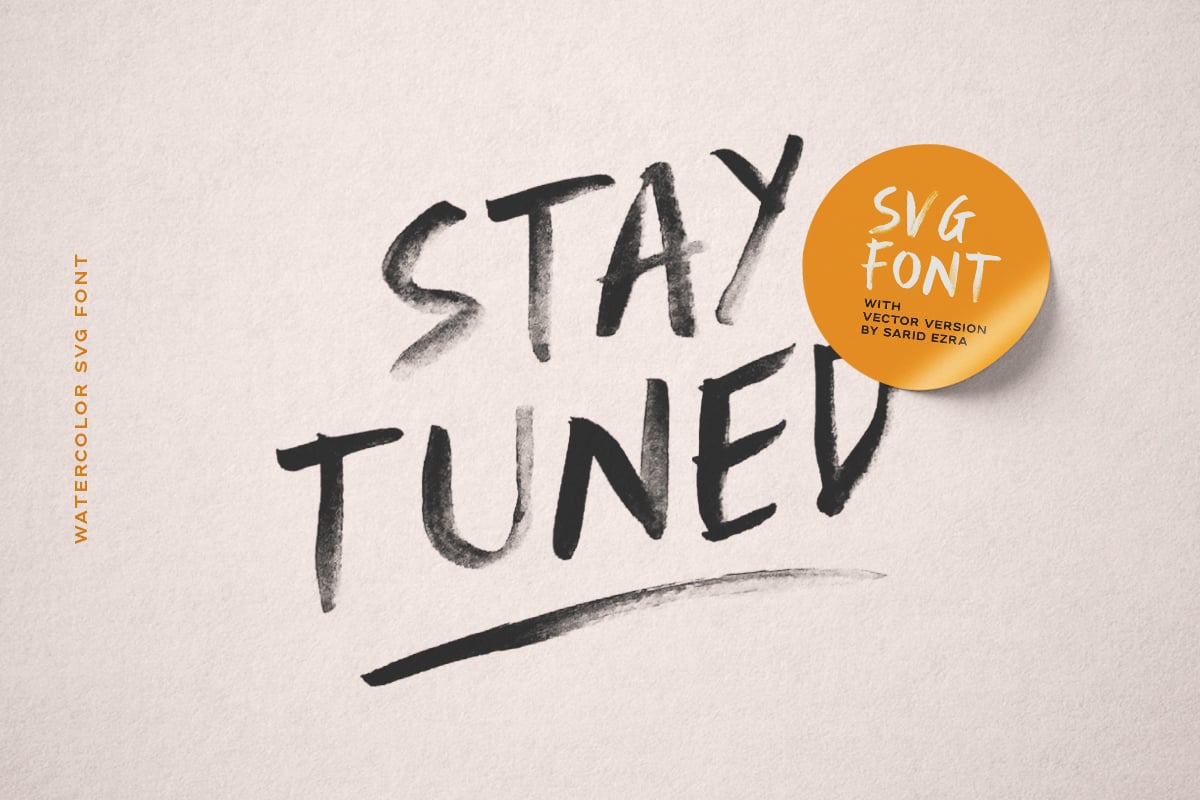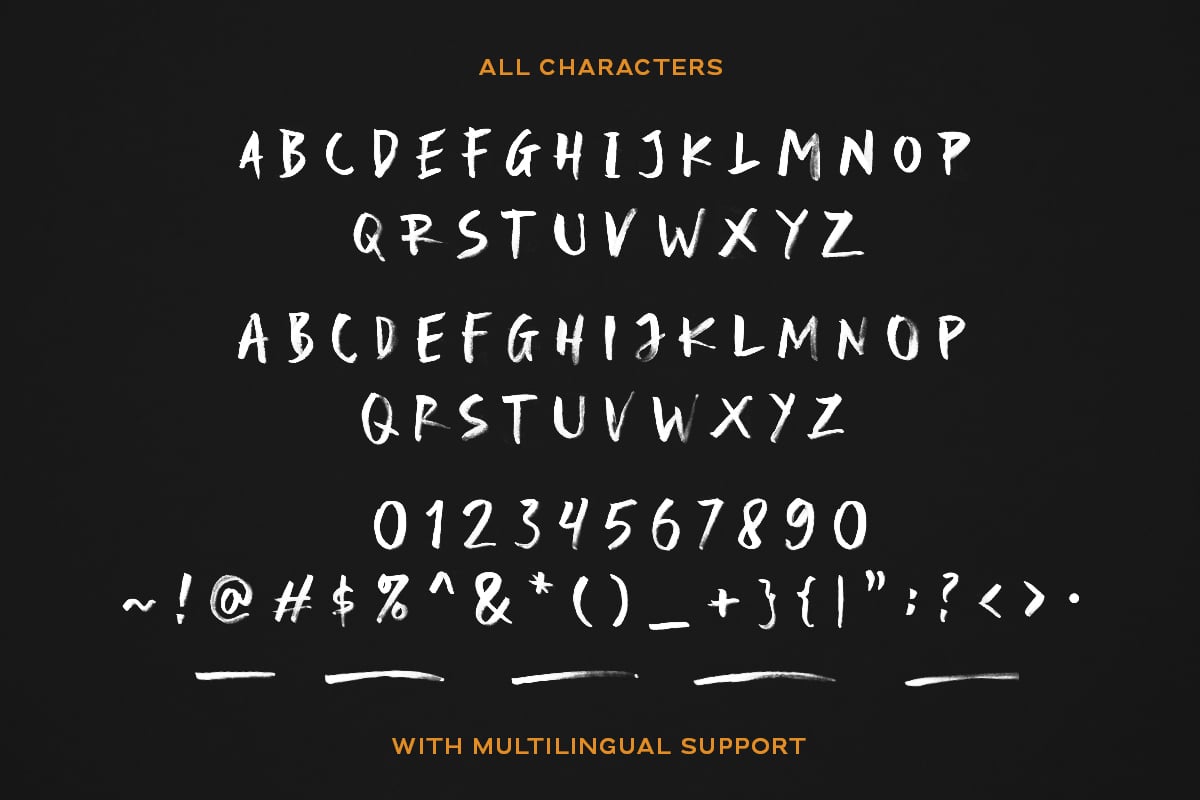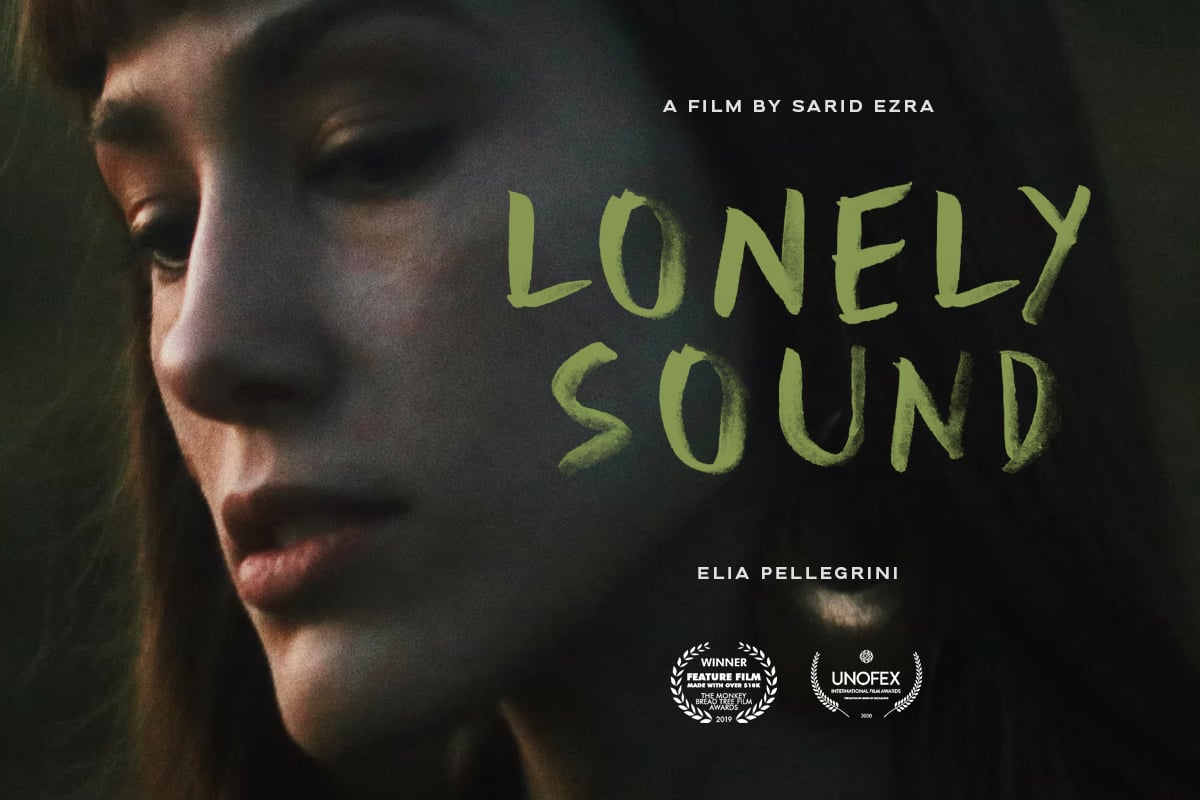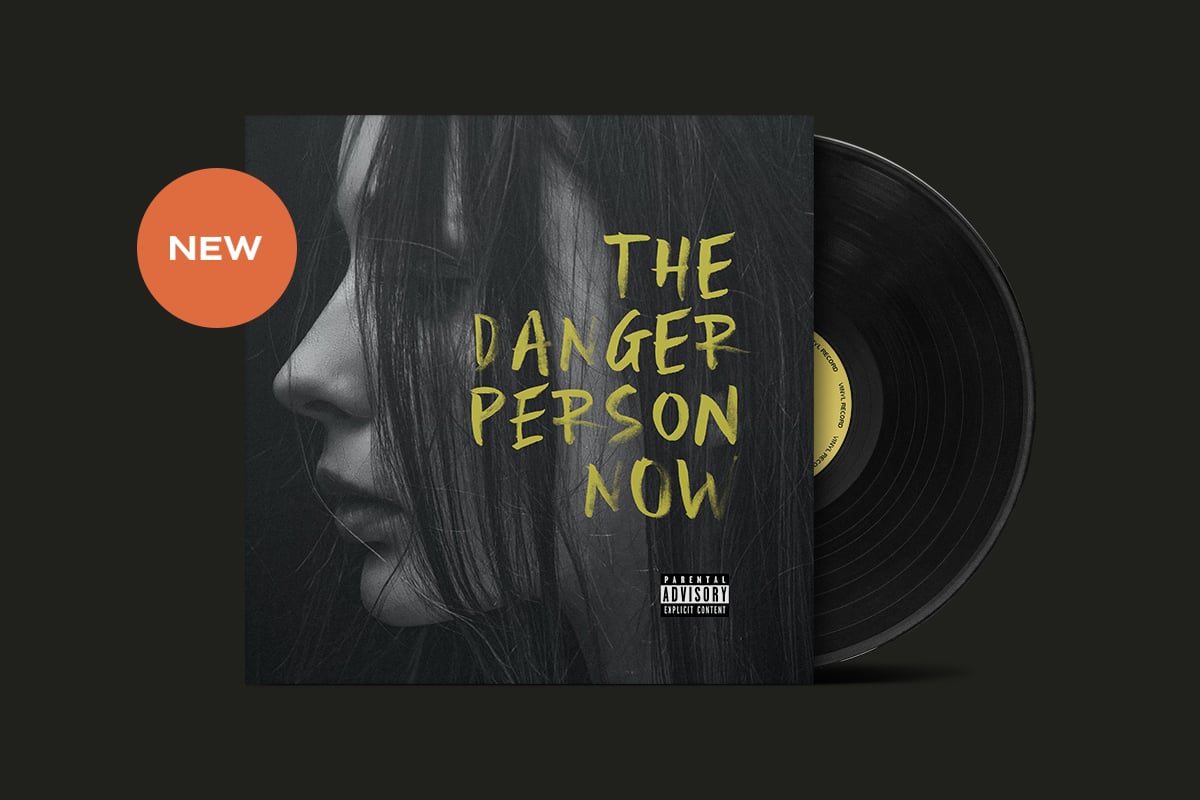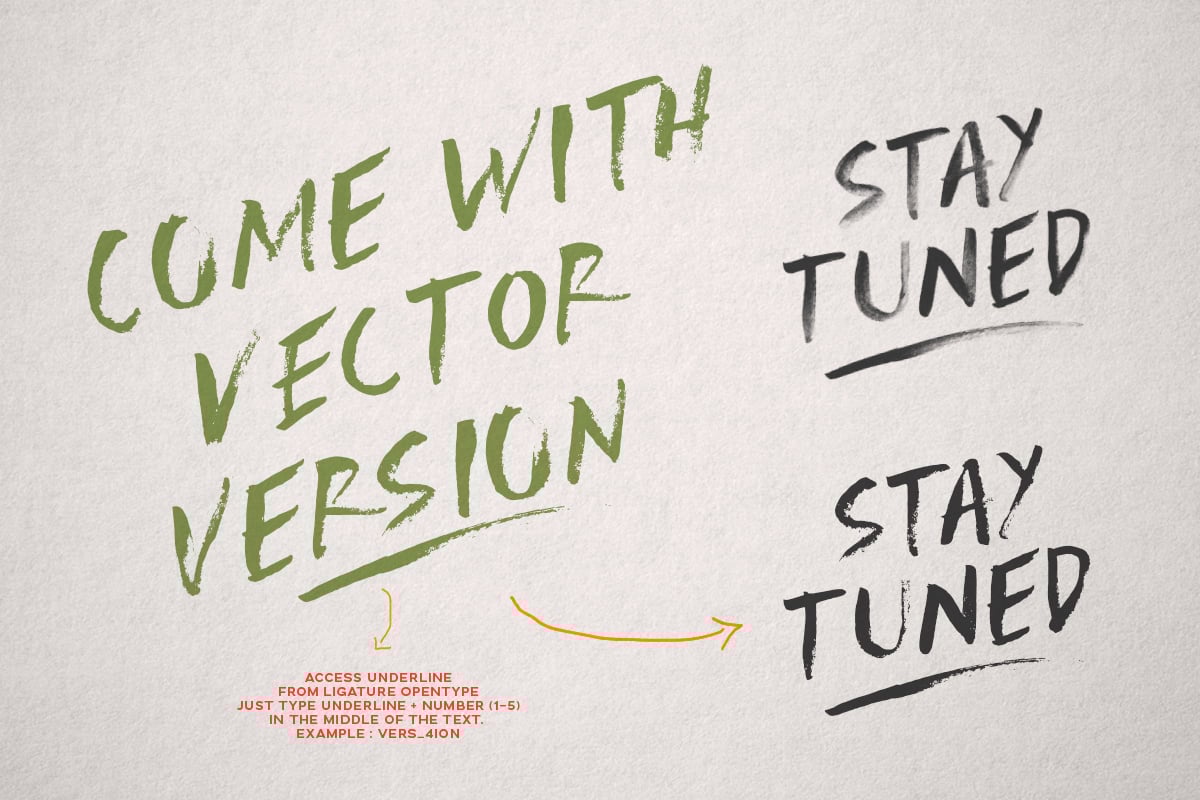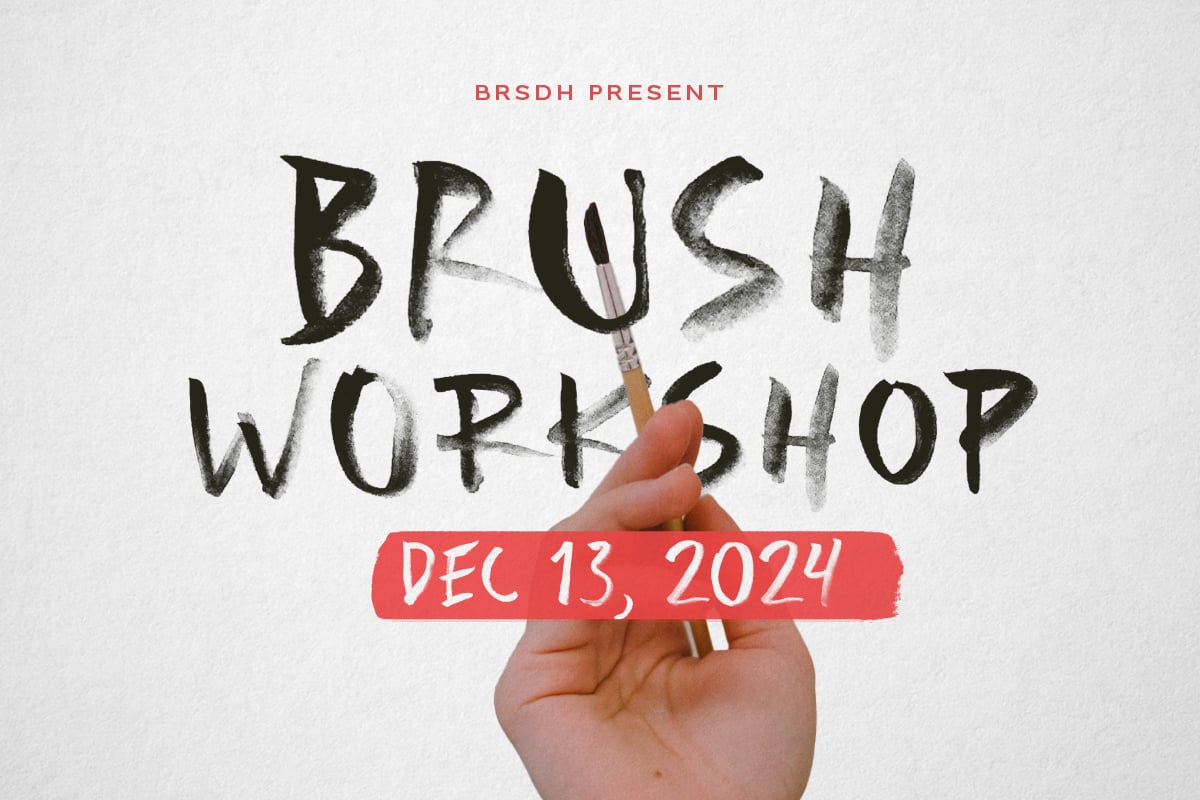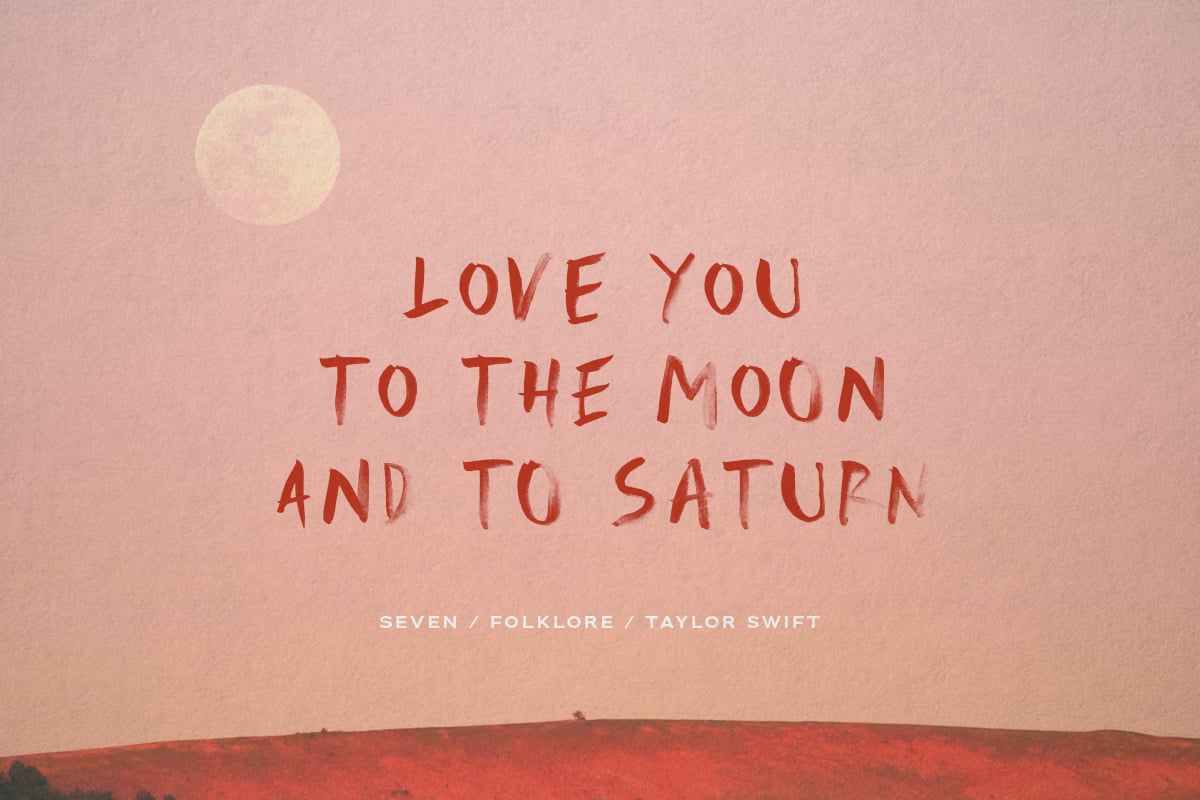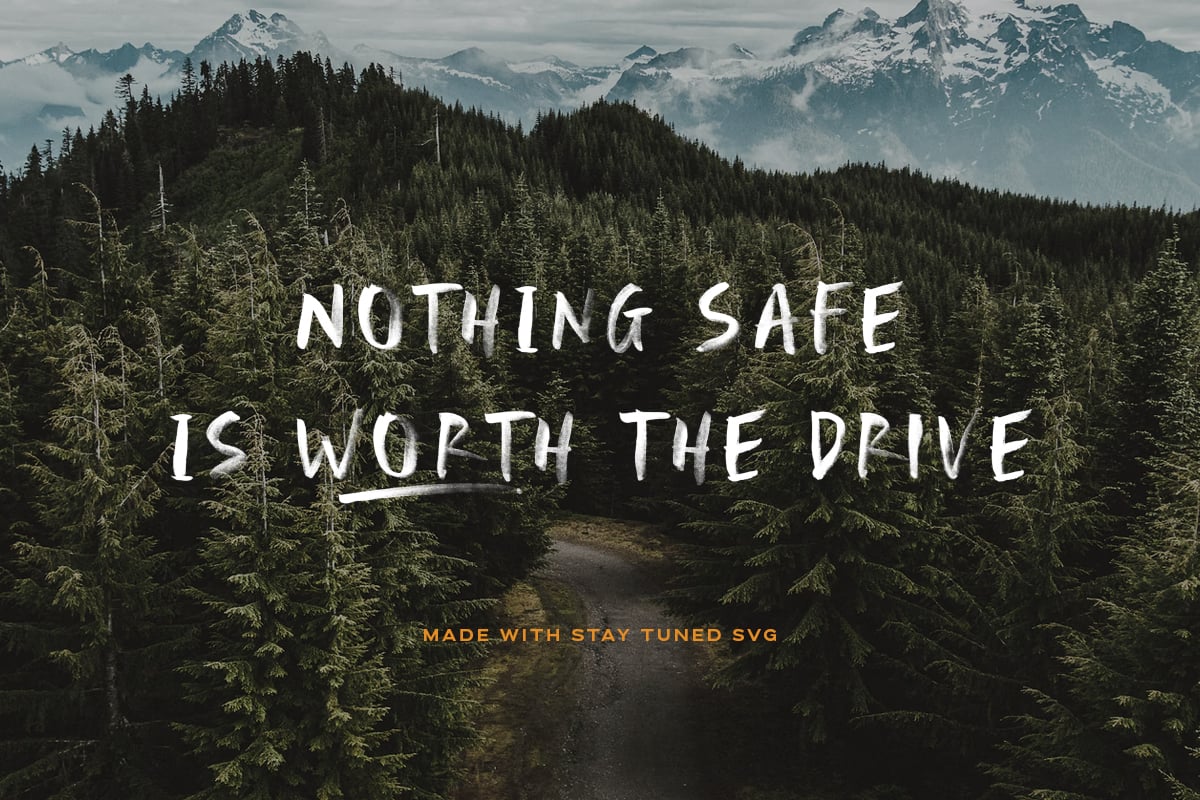
Stay Tuned – Watercolor SVG Font
Stay Tuned is SVG Font made with traditional watercolor. Comes with SVG format (SVG OTF) and also with a vector (OTF). Including different lowercase and uppercase that you can use randomly. You can combine the uppercase and lowercase in a word that will make your design looks more natural and handmade. Use the underline for dramatic looks. Number, symbol, and another punctuation also included in this fonts. Support multilingual!